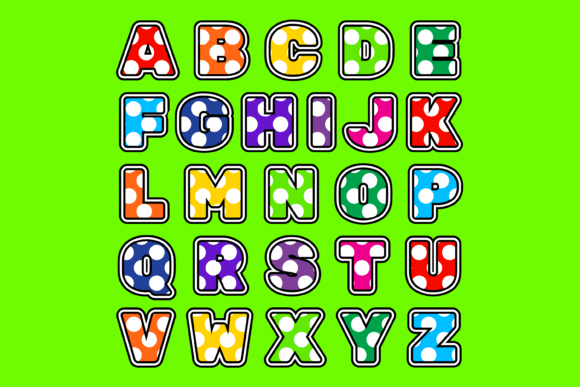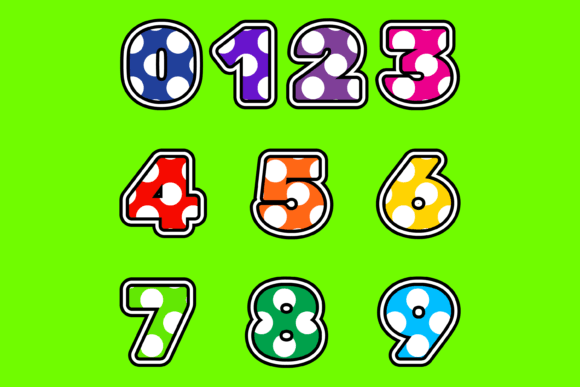
Introducing Big Dots Font: Add a Playful Touch to Your Designs
Are you looking for a font that can add a playful and lovely touch to your designs? Look no further than Big Dots Font! This incredibly cool color font is decorated with cute spots, making it perfect for custom designs, DIY crafts, and any creation that requires a fun and whimsical element.
What is Big Dots Font?
Big Dots Font is a unique and eye-catching color font that features adorable spots in a variety of colors. This font is perfect for designers and crafters who want to add a personal touch to their work. Whether you’re creating custom party invitations, designing a logo for a children’s brand, or making DIY crafts, Big Dots Font is an amazing choice.
Key Features of Big Dots Font
- Color Font (Opentype-SVG): Big Dots Font is a color font that uses the Opentype-SVG format, which allows for vibrant and detailed designs.
Design Ideas with Big Dots Font
Big Dots Font is a versatile font that can be used in a variety of design projects. Here are some ideas to get you started:
- Custom Party Invitations: Use Big Dots Font to create custom party invitations that are sure to impress.
- DIY Crafts: Add a personal touch to your DIY crafts, such as handmade cards, gift tags, and decorations.
- Logo Design: Use Big Dots Font to create a fun and playful logo for a children’s brand or product.
- Social Media Graphics: Add a pop of color and personality to your social media graphics using Big Dots Font.
Big Dots Font is a unique and playful color font that’s perfect for designers and crafters who want to add a fun and whimsical touch to their work. With its cute spots and vibrant colors, this font is sure to delight. Whether you’re creating custom designs, DIY crafts, or social media graphics, Big Dots Font is an amazing choice. So why wait? Download Big Dots Font today and start creating!